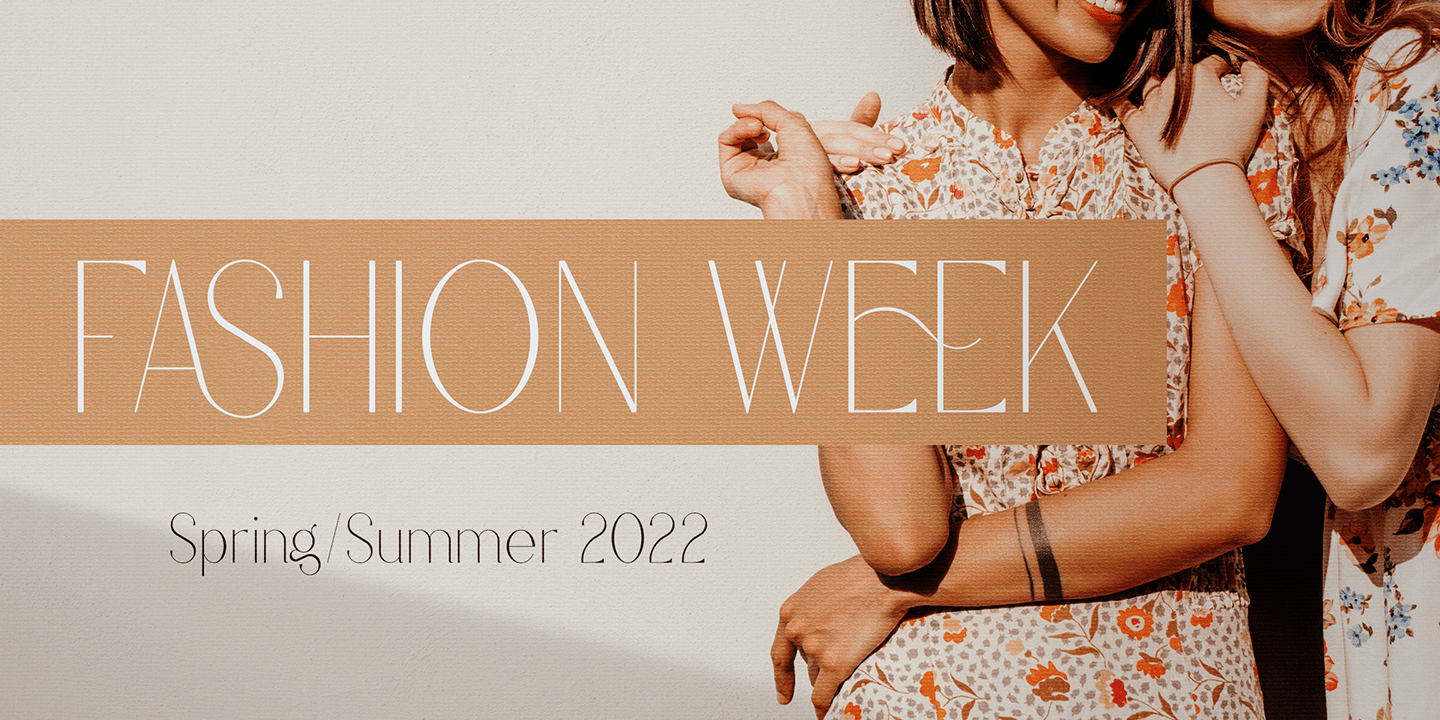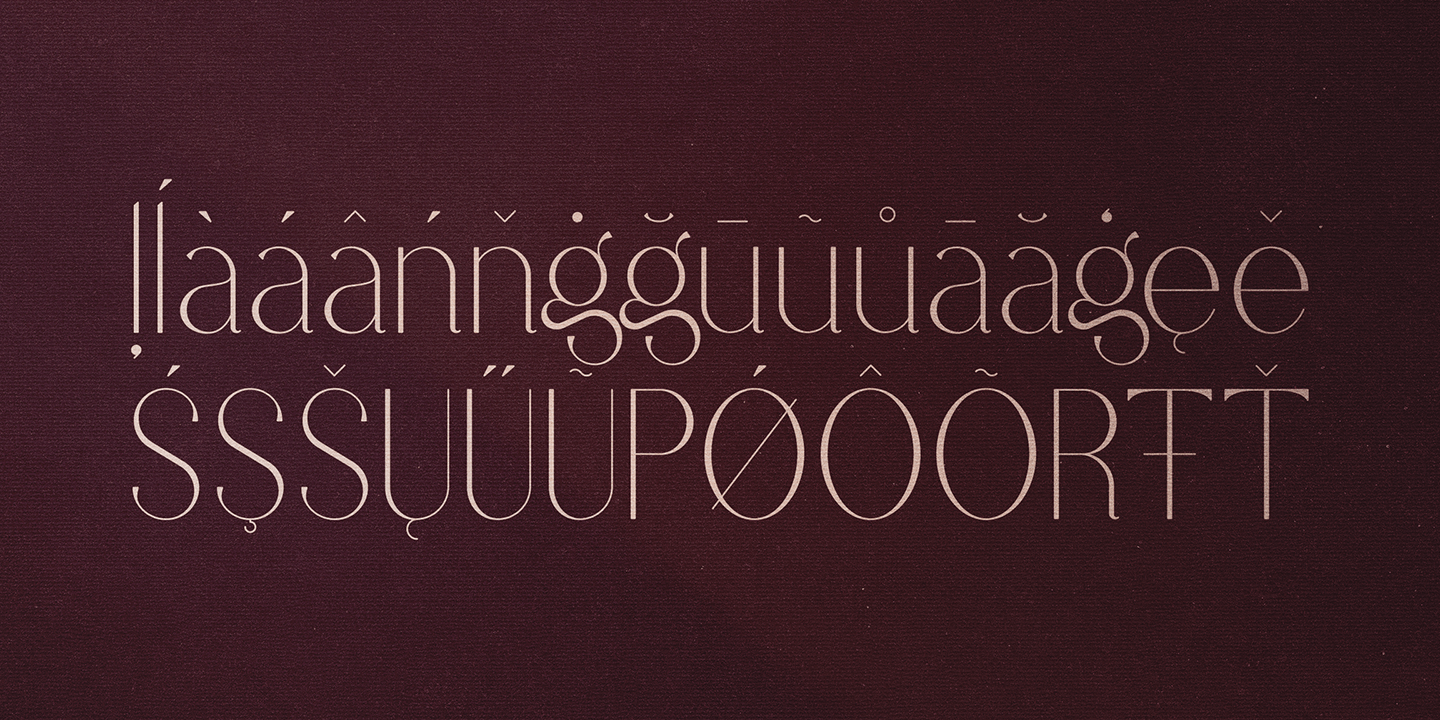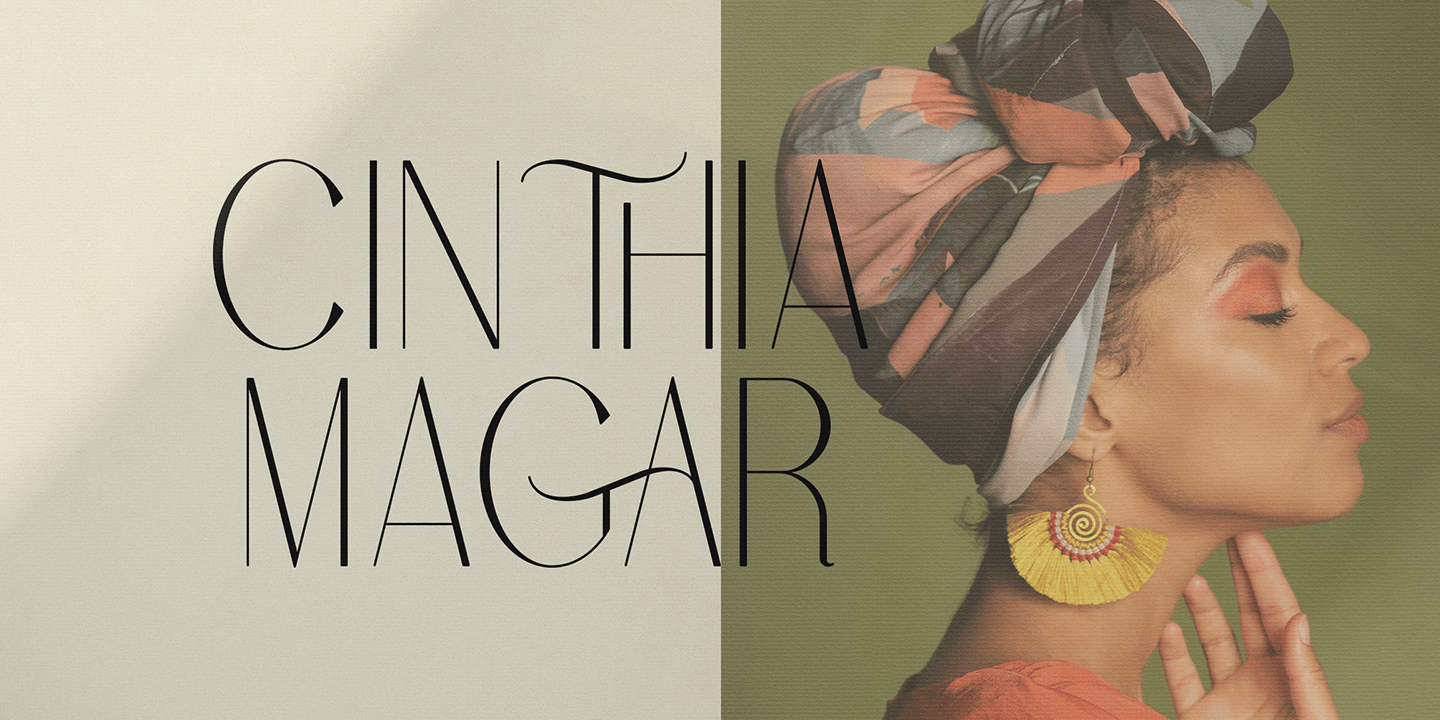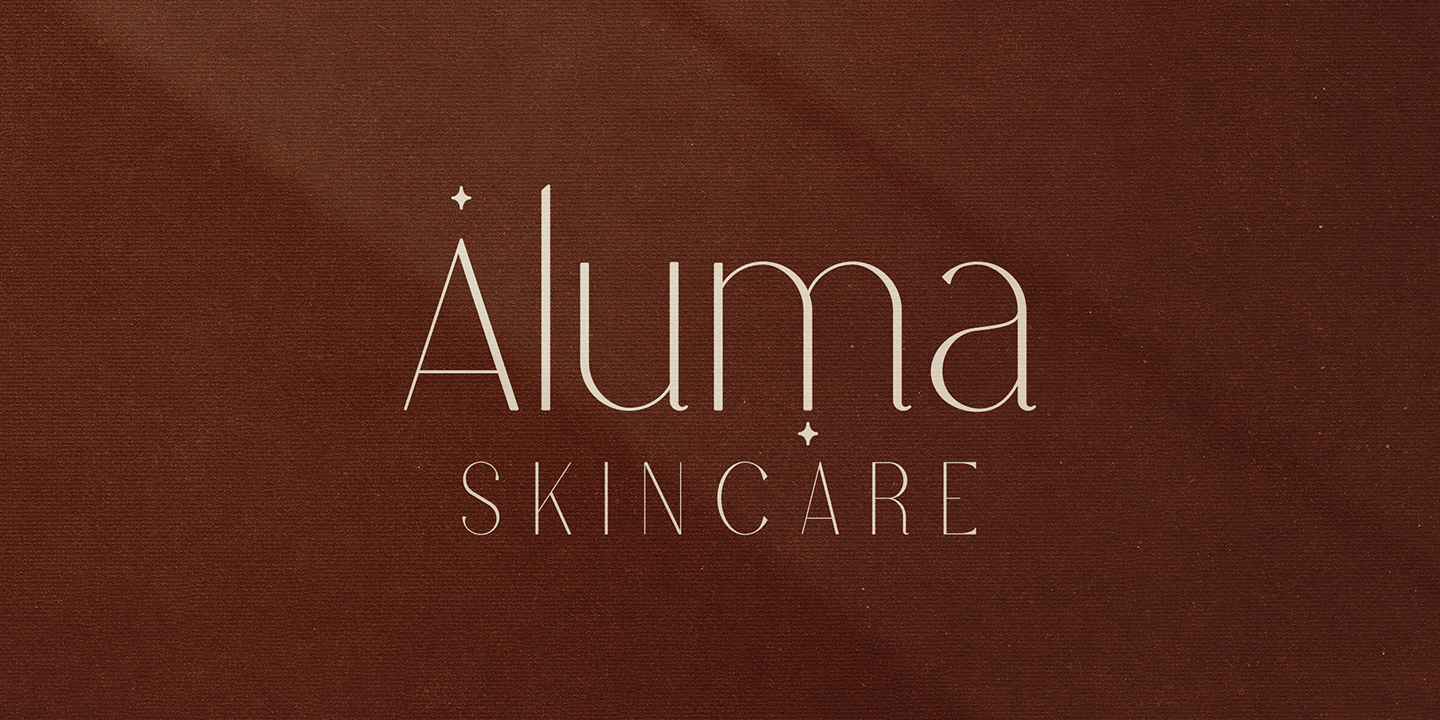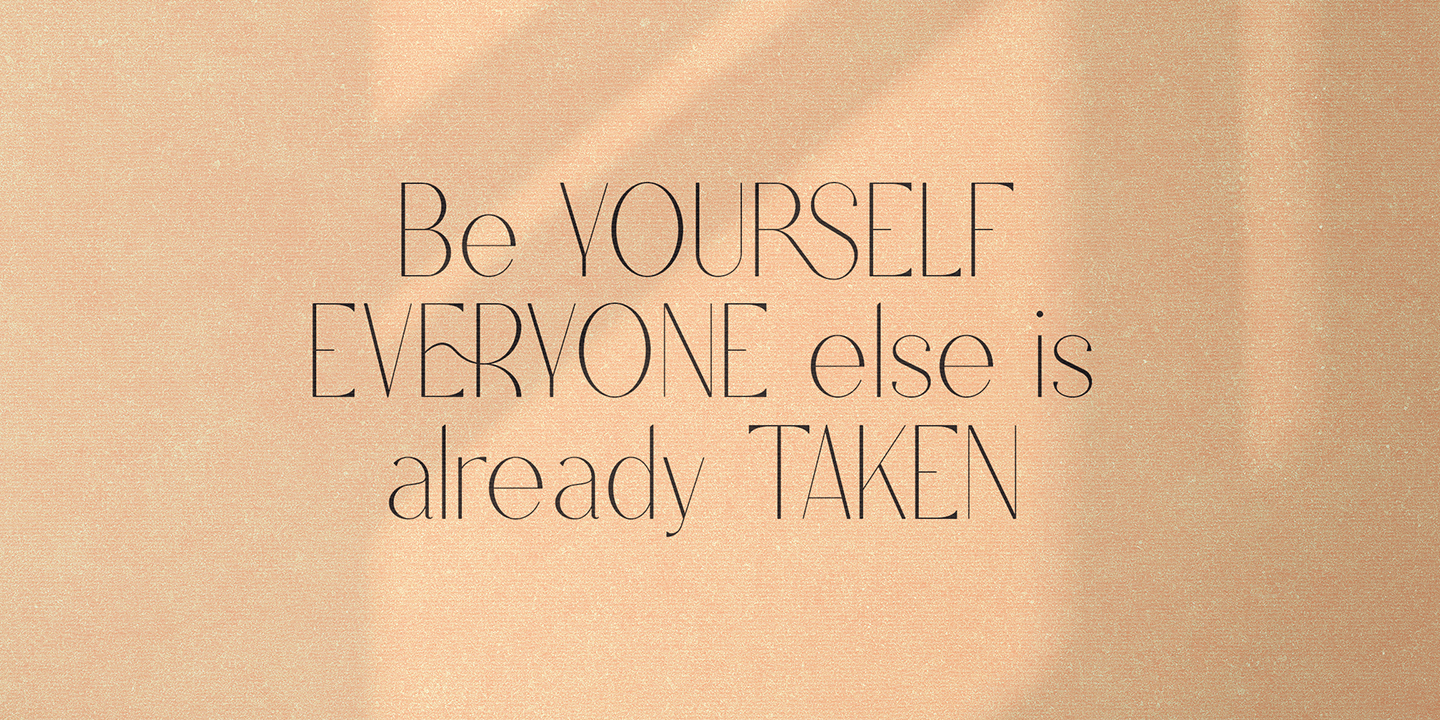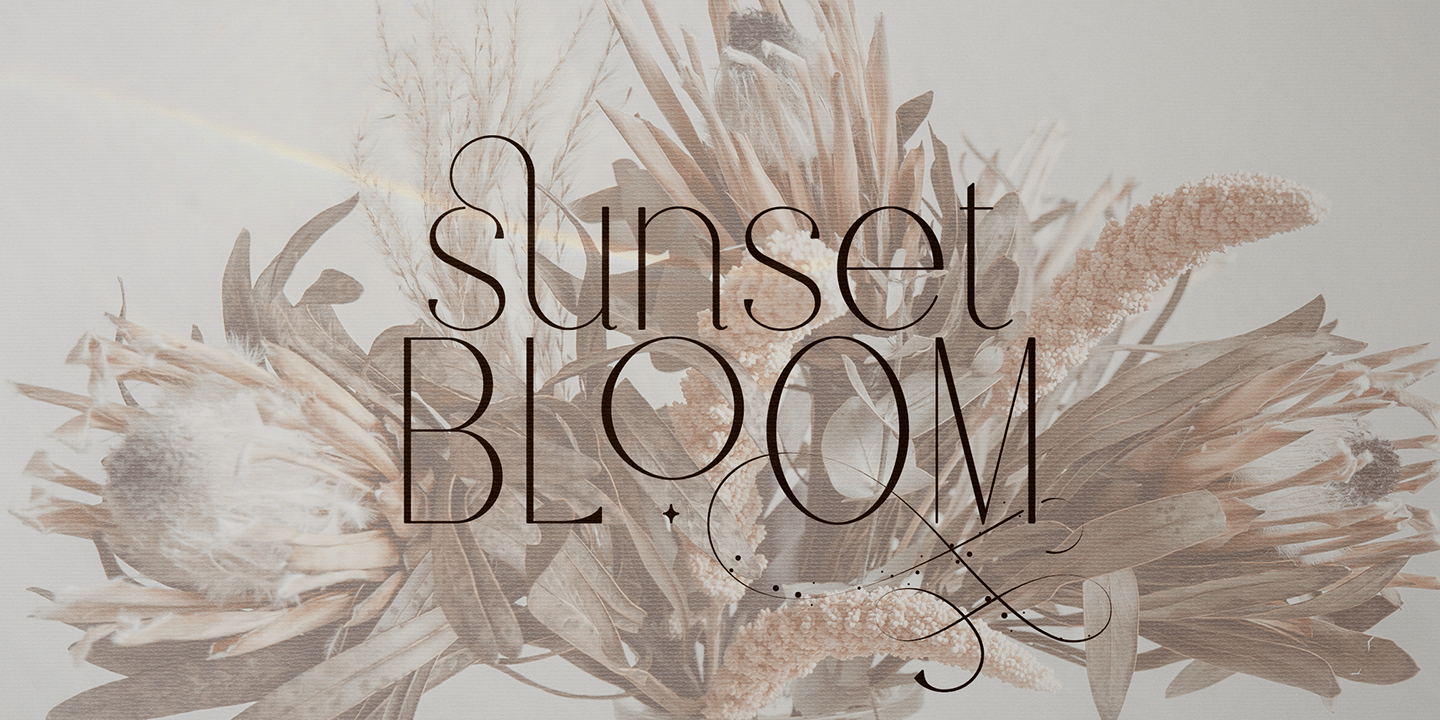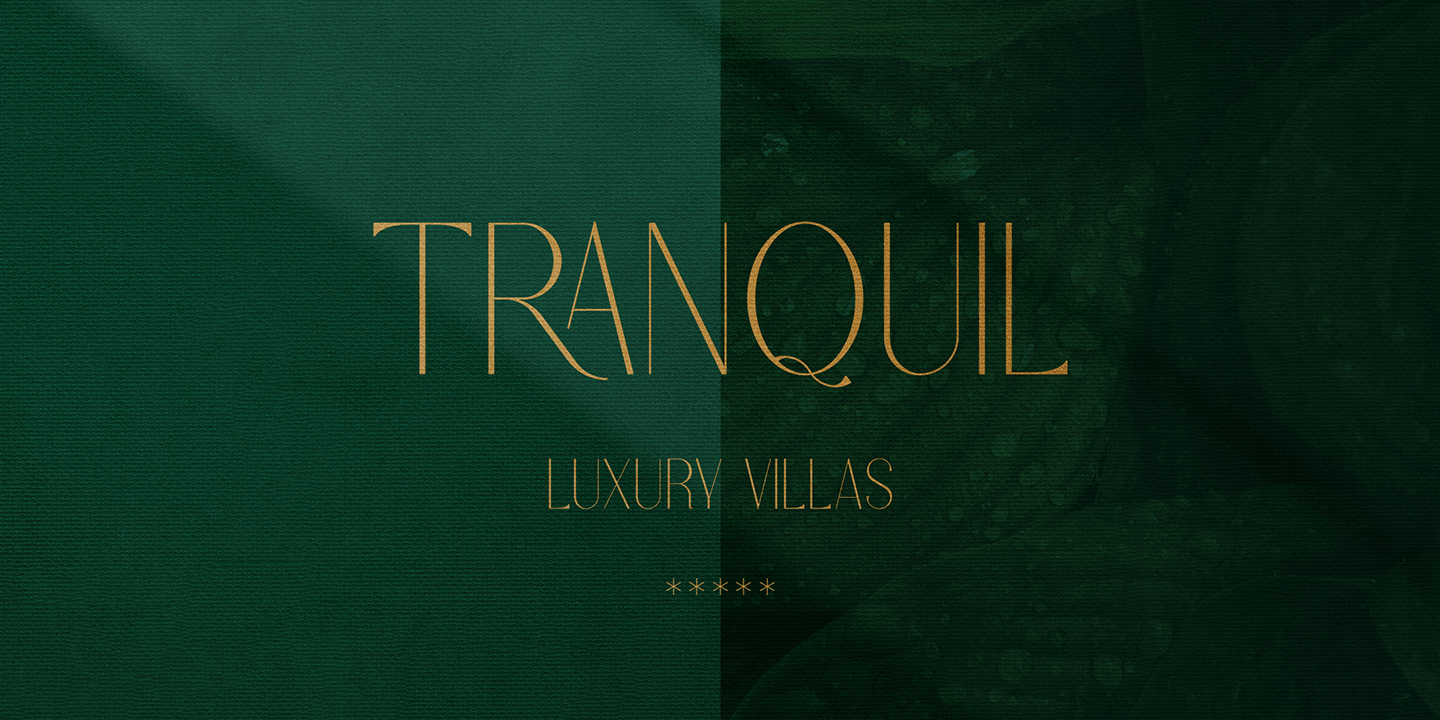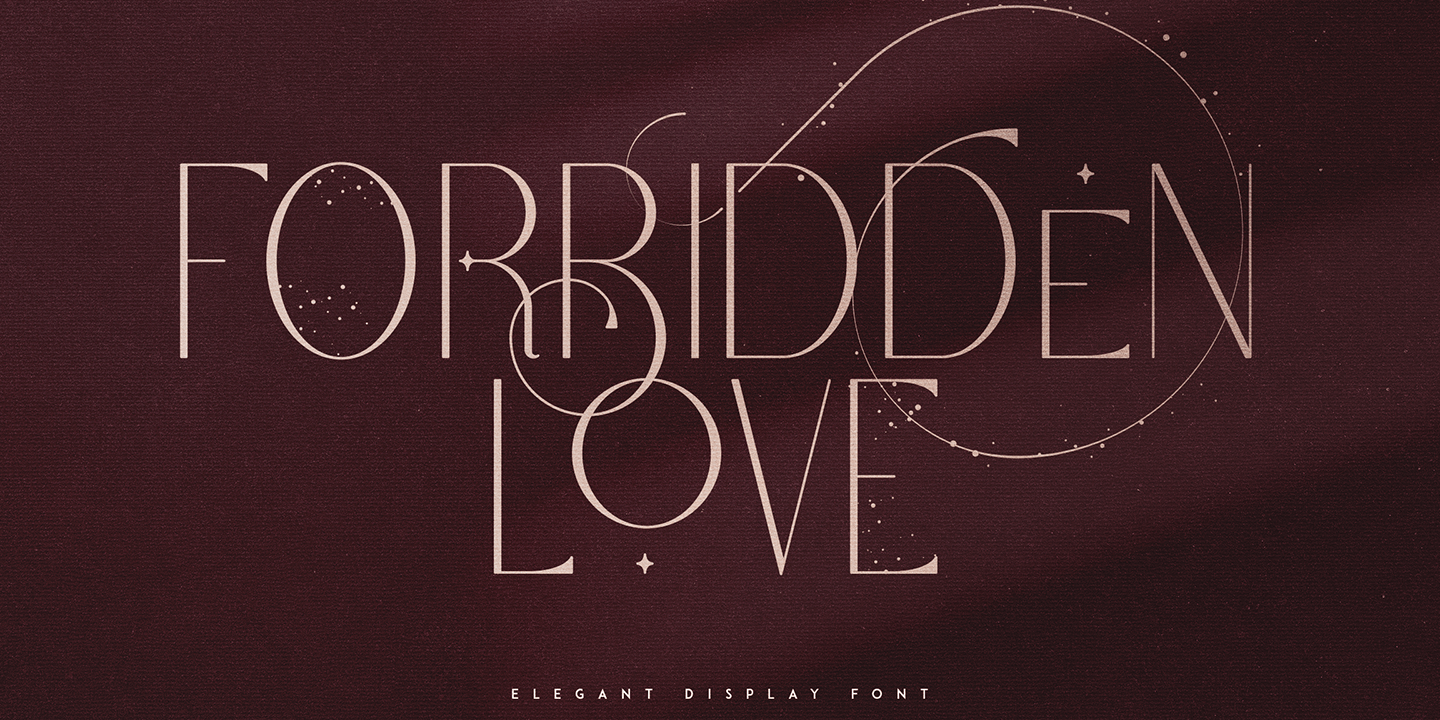
About Forbidden Love
Introducing Forbidden Love – Display font | Latin & Cyrillic Forbidden Love is stylish and creative font loaded with alternate and ligature glyphs, 95 languages support to make you typography truly unique! Language Support : Belarusian,…